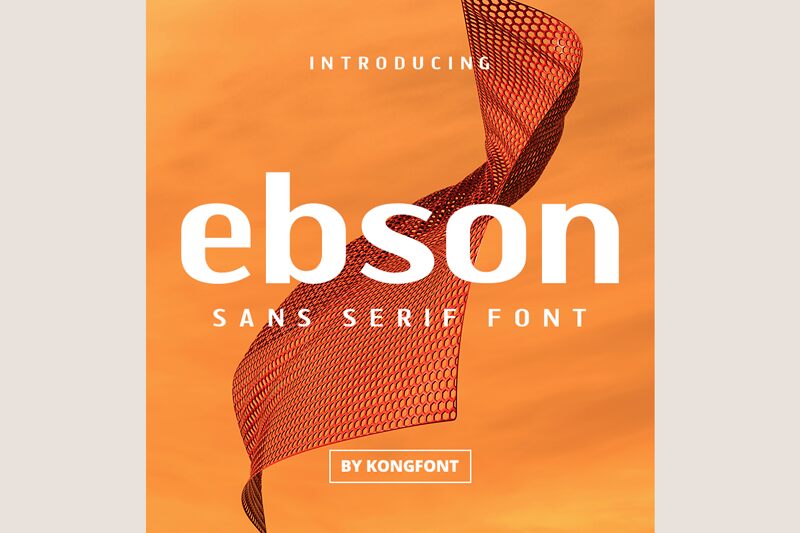
Ebson
Ebson, designed by Kong Font, embodies a modern sans serif with a semi-bold weight that exudes confidence and clarity. Its sleek lines and balanced proportions lend it an aesthetic appeal that is both contemporary and versatile. The font's clean-cut edges and open forms make it highly legible, ensuring that it maintains its impact across various applications.
The semi-bold weight of Ebson adds just the right amount of emphasis without overwhelming the reader, making it an ideal choice for branding, digital interfaces, and print media alike. Its unembellished form allows for excellent readability in paragraph text while also standing out in headlines and logos.
Whether you're crafting a sophisticated brand identity or setting up engaging editorial layouts, Ebson's uncluttered style harmonizes with a wide range of creative projects. Its sturdy yet approachable appearance is sure to capture attention and convey messages with precision and style.